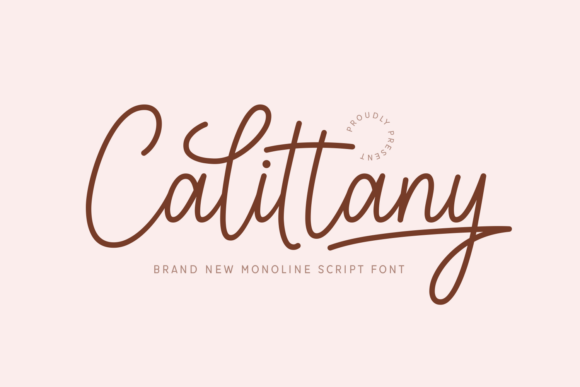
I’ll never forget the countless hours I spent searching for the perfect font for a client’s branding project. The goal was to find a font that exuded sophistication, yet remained approachable and friendly. As I scrolled through font after font, I began to feel like I was on a mission impossible. That was until I stumbled upon Calittany, a sleek and modern monoline script font that stole my heart.
First Impressions: A Love Affair with Calittany
As soon as I laid eyes on Calittany, I knew I had found the one. Its smooth, flowing lines and minimalist design make it a perfect fit for projects that require a touch of elegance. Whether you’re working on branding, quotes, invitations, or social media graphics, Calittany enhances every creative project with a dash of sophistication.
• ✨ Smooth and flowing lines that give it a luxurious feel
• ✅ Minimalist design that’s perfect for modern projects
• 💫 Elegant and sophisticated without being too formal
• 👍 Highly versatile and adaptable to various design projects
While Calittany is an amazing font, it’s not without its quirks. For instance, ⚠️ some users may find that the font’s minimalist design can make it difficult to read at very small sizes. Additionally, 🤔 the font’s lack of extreme variations may limit its use in certain design projects that require a high level of customization.
3. Experiment with Calittany’s OpenType features, such as stylistic alternates and glyphs, to add more personality to your design.
The Designer Inspiration Behind Calittany:
Calittany was designed with the goal of creating a font that embodies the perfect balance between elegance and approachability. The designer sought inspiration from classic typography and modern design trends to create a font that’s both timeless and contemporary. The result is a font that’s perfect for designers, crafters, and creative hobbyists looking to add a touch of sophistication to their projects.
Q: What is Calittany’s personality?
A: Calittany is a sleek and modern monoline script font with a timeless charm. It’s perfect for projects that require a sophisticated yet approachable style.
Q: Is Calittany a versatile font?
A: Yes, Calittany is a highly versatile font that can be used in a variety of design projects, from branding and advertising to invitations and social media graphics.
Q: Can I use Calittany’s OpenType features?
A: Yes, Calittany supports OpenType features, including stylistic alternates and glyphs. You can access these features in compatible design software, such as Adobe Photoshop and Illustrator.